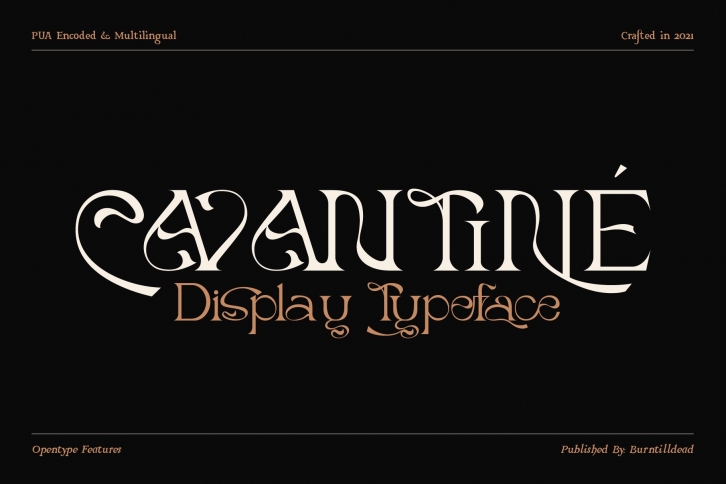
Cavantine is a trendy and unique font with an authentic style. It was designed by Burntilldead and it's a great choice for creative people who need such a font. It was released on August 9, 2021 and the file size is 3.74 MB. Cavantine will add an organic vibe to any design idea!